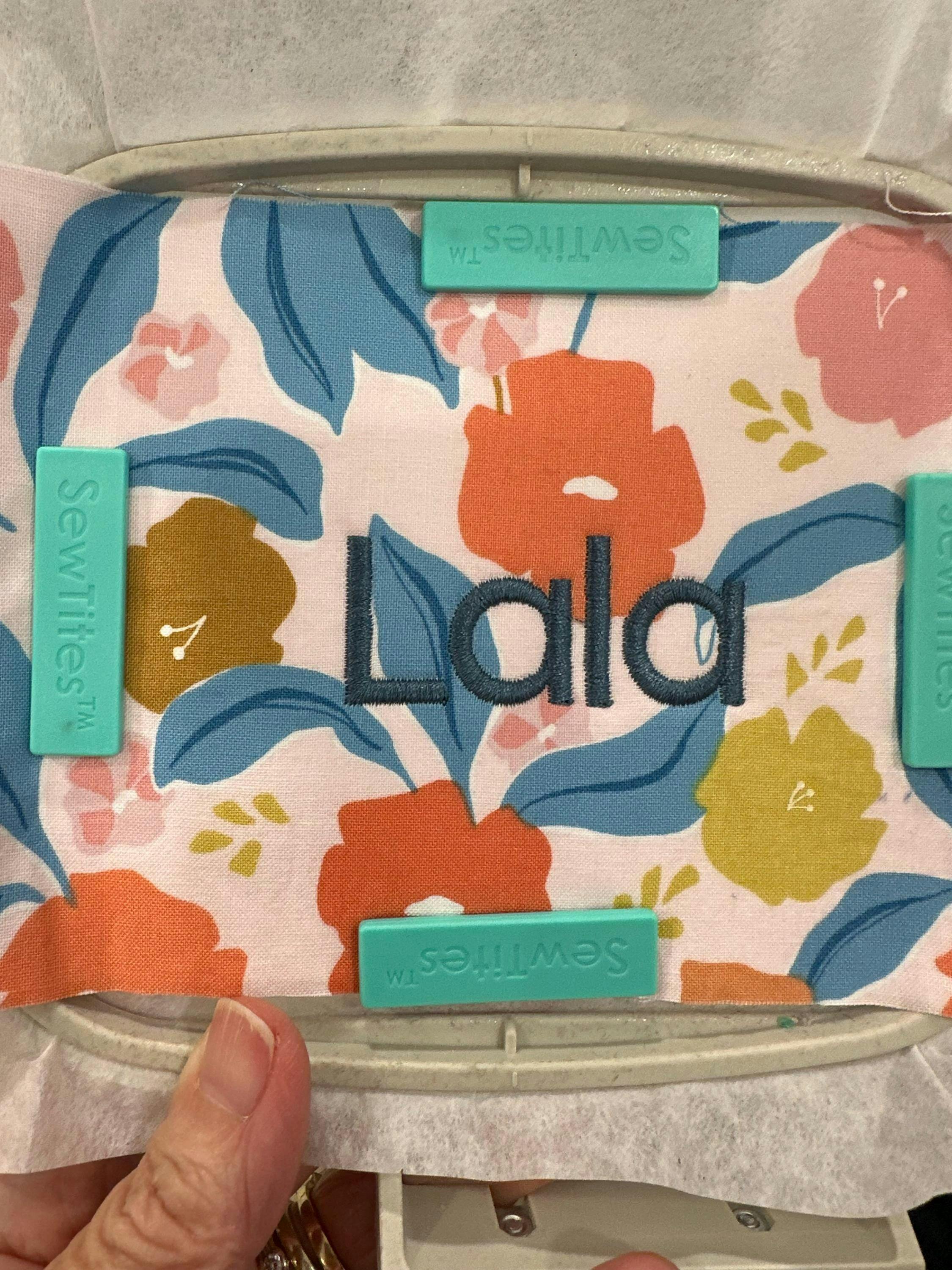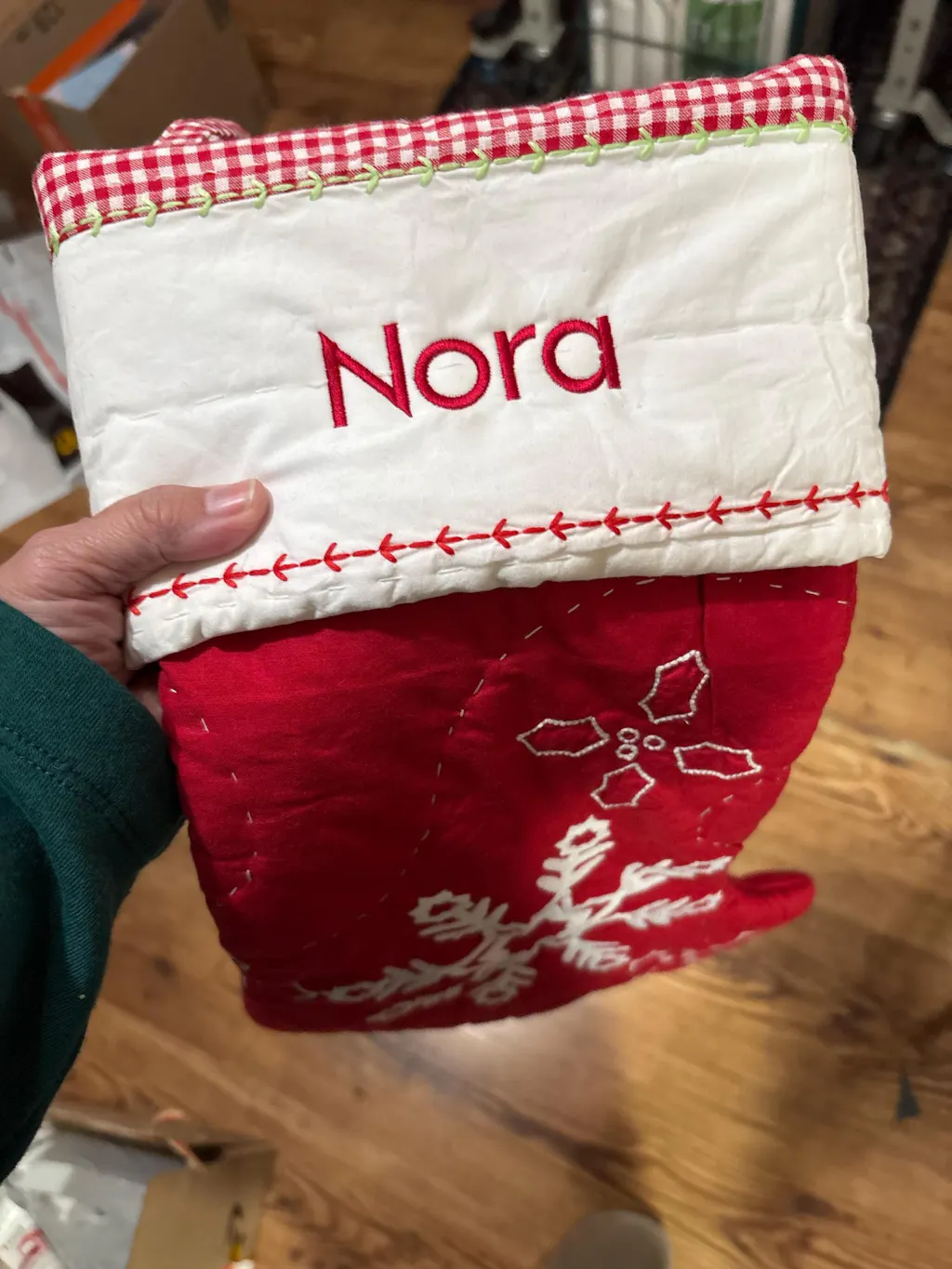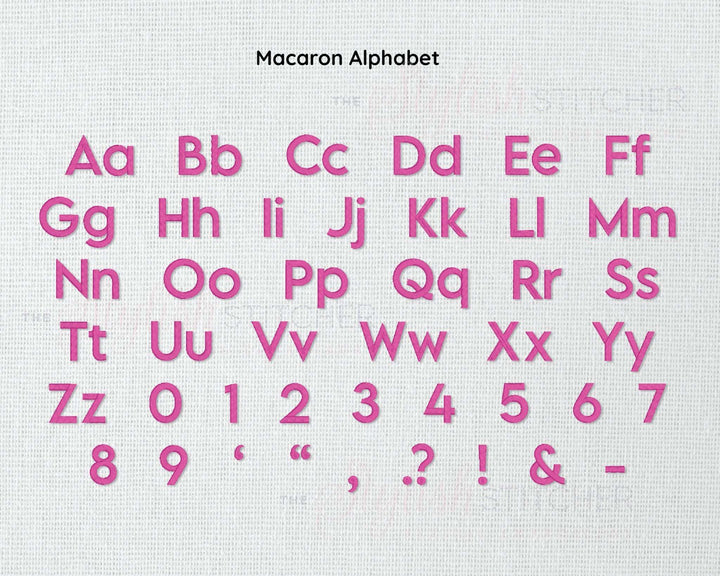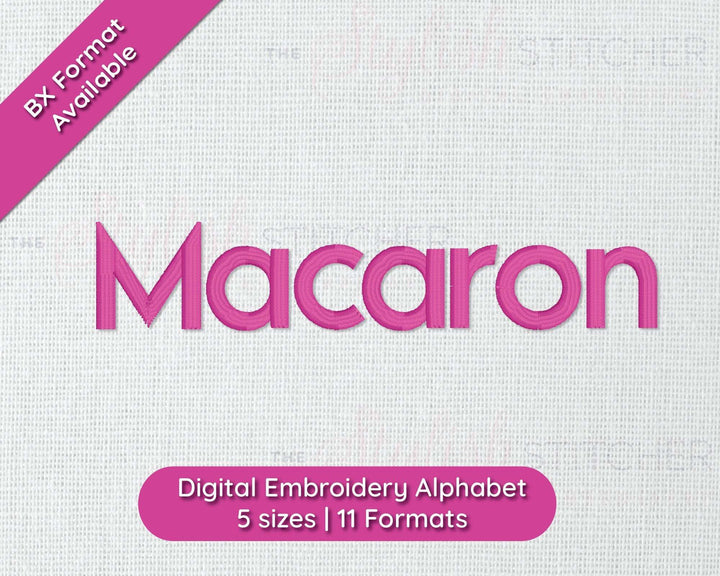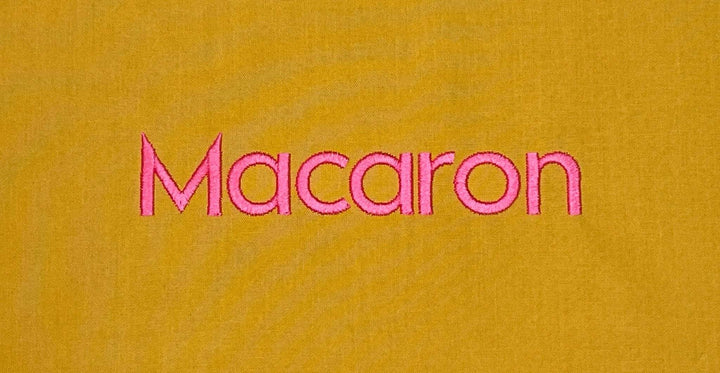
Photograph of Rustic Macaron embroidery font
Photograph of Macaron embroidery font alphabet
Photograph of stitched out Macaron embroidery font
Macaron Digital Embroidery Font
About Macaron Digital Embroidery Font
Bring a touch of sweetness and style to your digital embroidery with the Macaron font! Perfect for personalizing everything from towels and aprons to backpacks and handkerchiefs, this delectable font will add a unique flavor to your creations.
The Macaron font stands out with its playful yet bold characters, reminiscent of the beloved French confectionery. Whether you're adding a name to a chef's hat, labeling your child's belongings, or giving a gift that extra special touch, the Macaron font is as delightful as it is versatile.